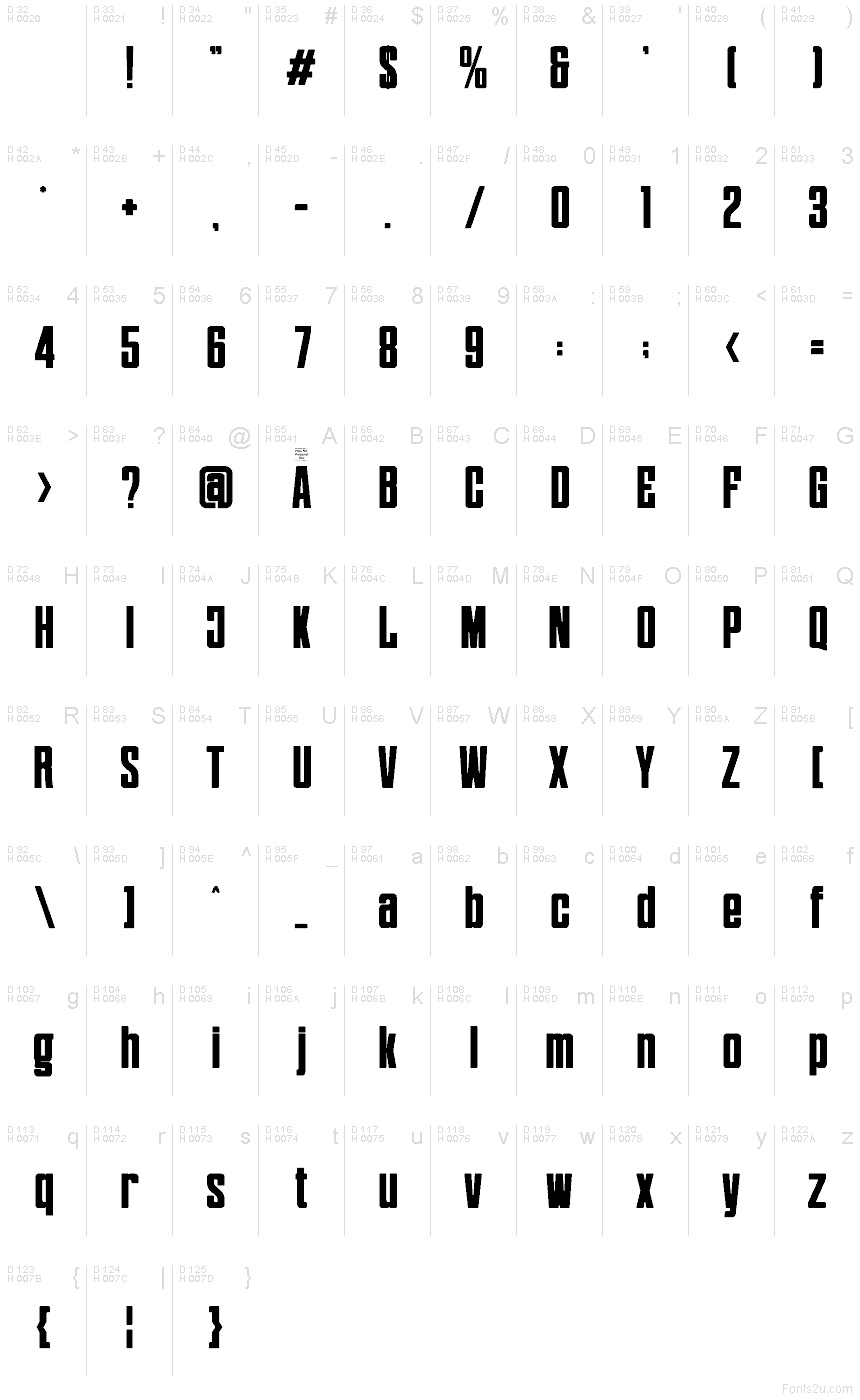
Redoga
Redoga font by Ermedia Studio is a free bold retro display font. Built around stout, squared silhouettes and pill-shaped counters, it delivers that chunky, retro-futurist punch without feeling cold. The strokes are even and the corners are softly rounded, so letters lock together in a dense, rhythmic block that reads cleanly while projecting serious weight. It’s the kind of heavy headline face that feels stamped in metal yet surprisingly friendly on the eye.
Using Redoga, you’ll get standout results on posters, logos, packaging, sports branding, album covers, and event flyers. The compact width and steady rhythm make short words hit hard and long names stay tidy. This free font shines at large sizes; add a touch of tracking when you scale down. Pair it with a light, open sans for body copy to let Redoga’s bold shapes carry the headline.